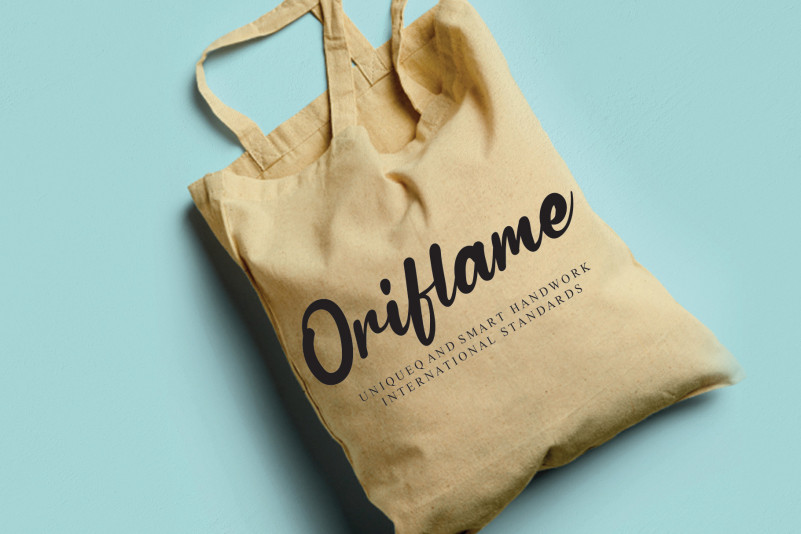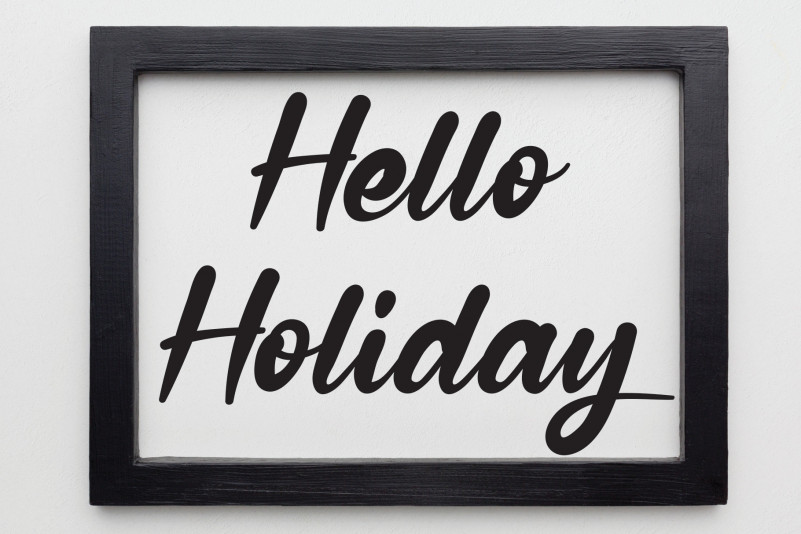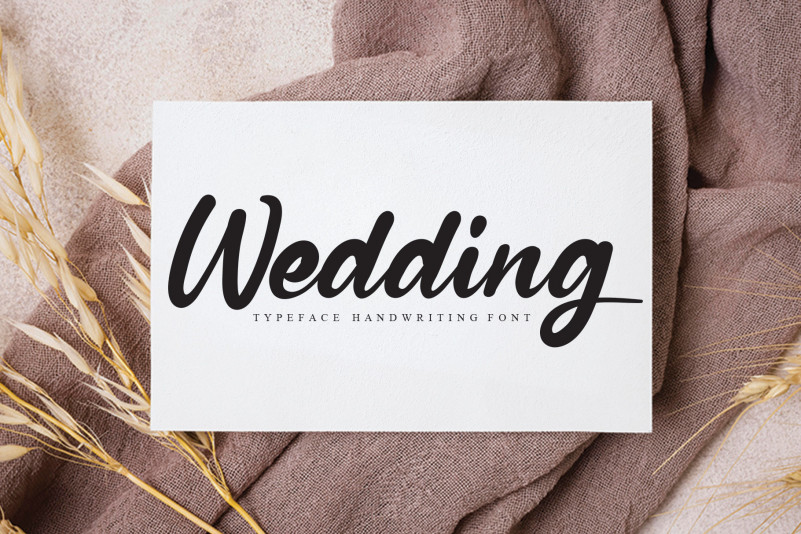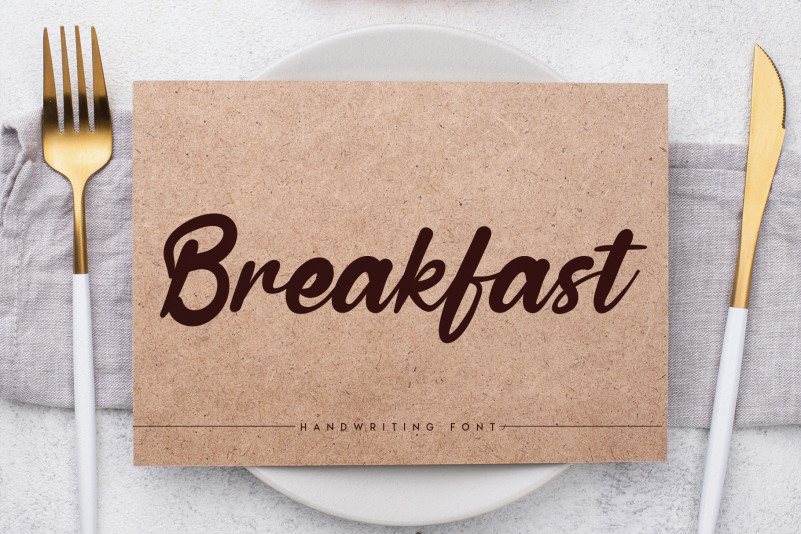
Winter Holidays Script Font
Winter Holidays Script Font is a bold and flowing handwritten font. Fall in love with its completely different and timeless style and use it to create spectacular designs!